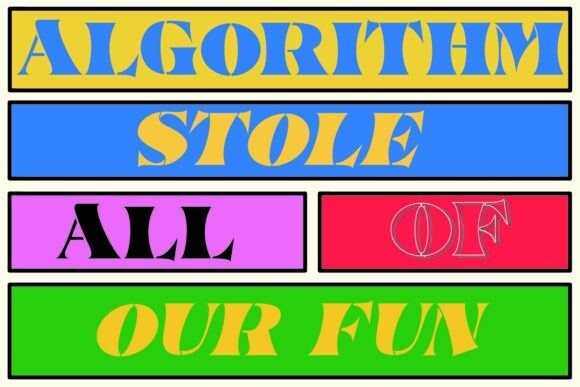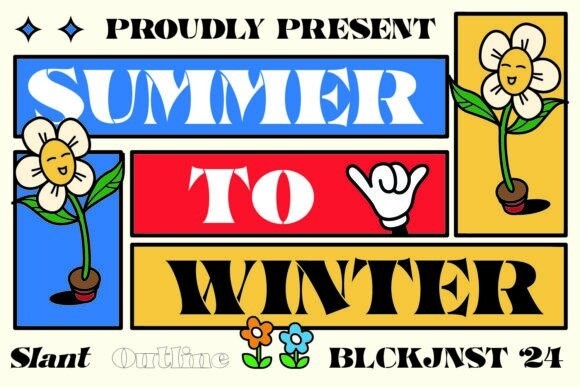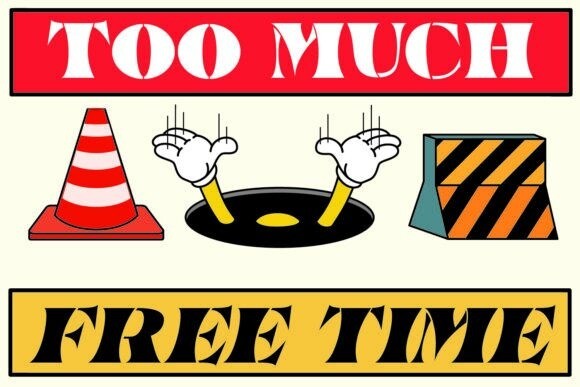
Summer To Winter Font
Summer To Winter is a well-crafted serif font. This elegant font boasts three unique combinations to choose from – Regular, Slant and Outline. Each version has its own charm and sophistication, making it the perfect tool to elevate your design projects.
Whether you want to keep it sharp with Regular, add an artistic slant with Slant or make it stand out with Outline, ‘Summer to Winter’ is sure to bring beautiful variety to your font library.
Take a transcendent journey from warm, charming summer to cold, serene winter with this versatile serif font.